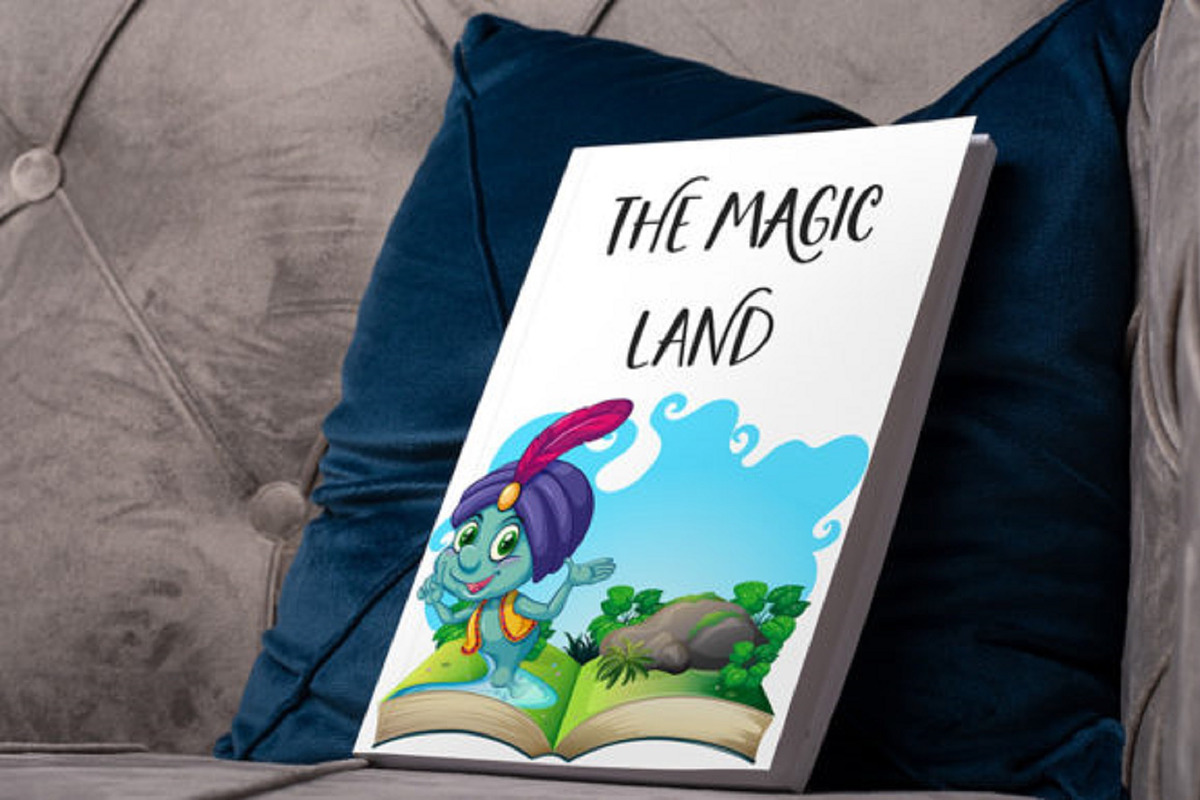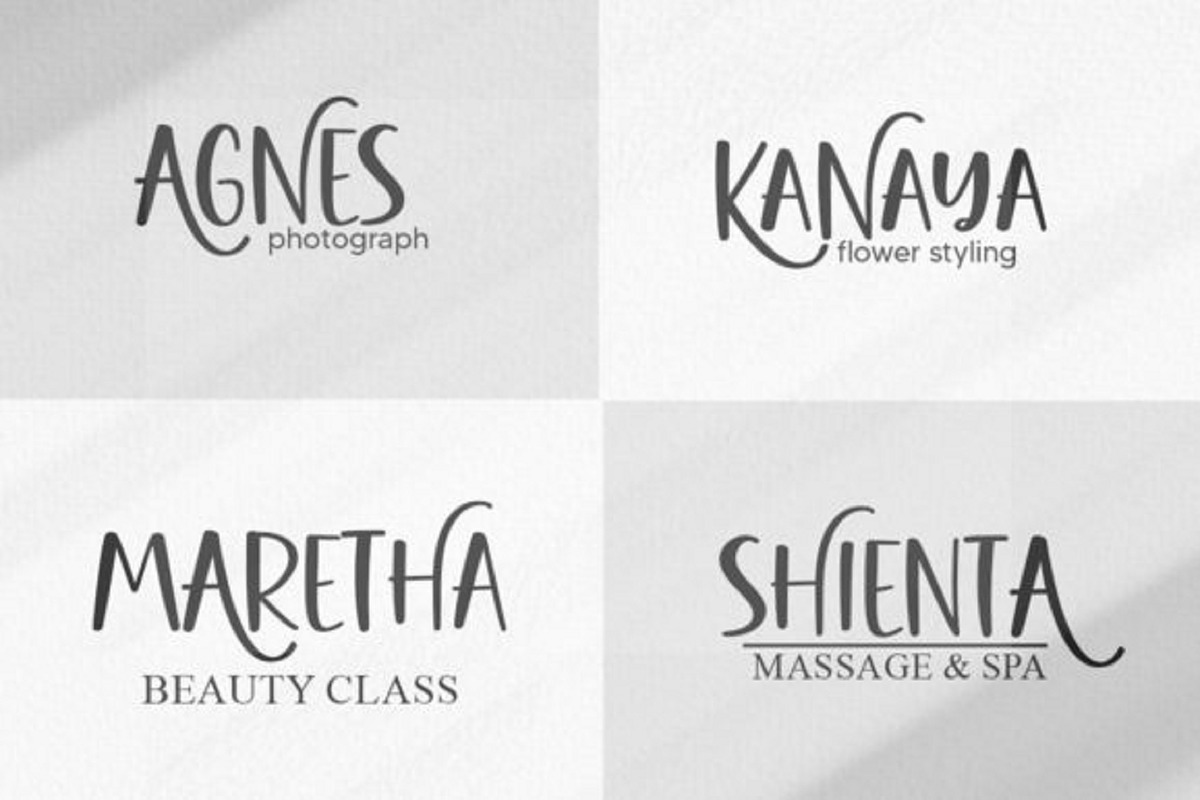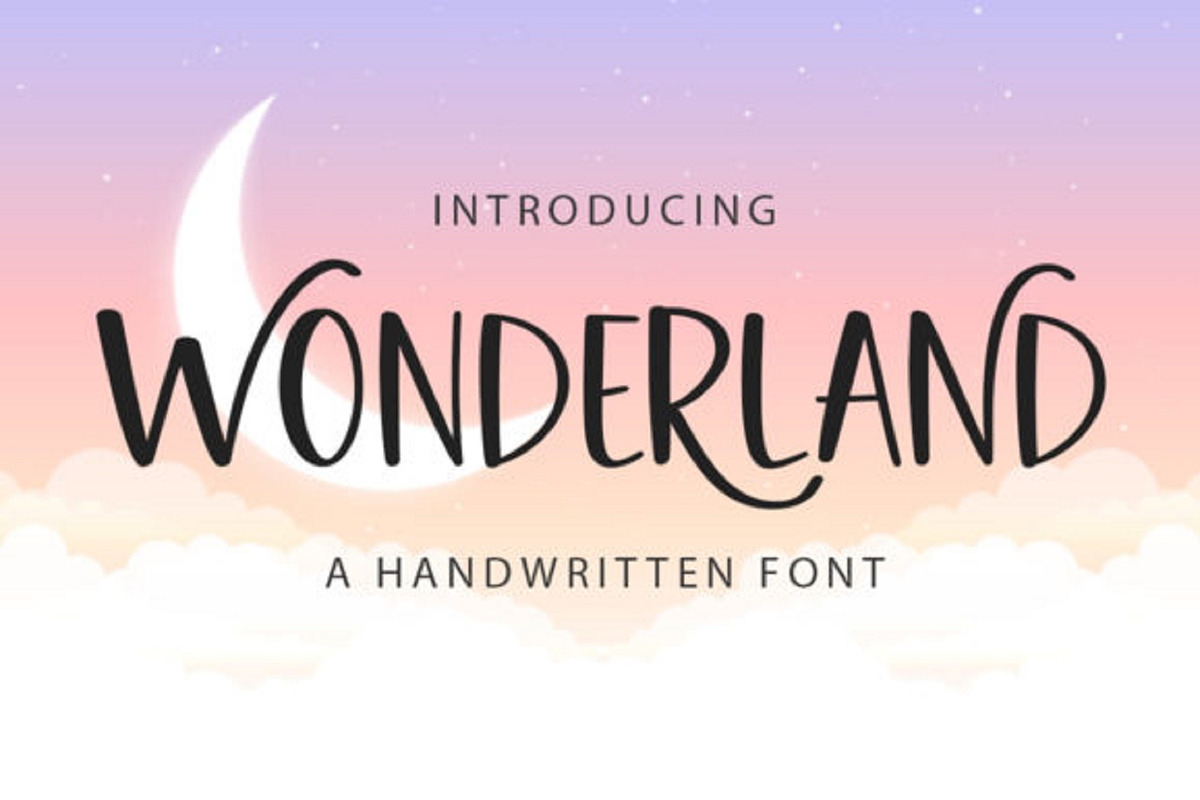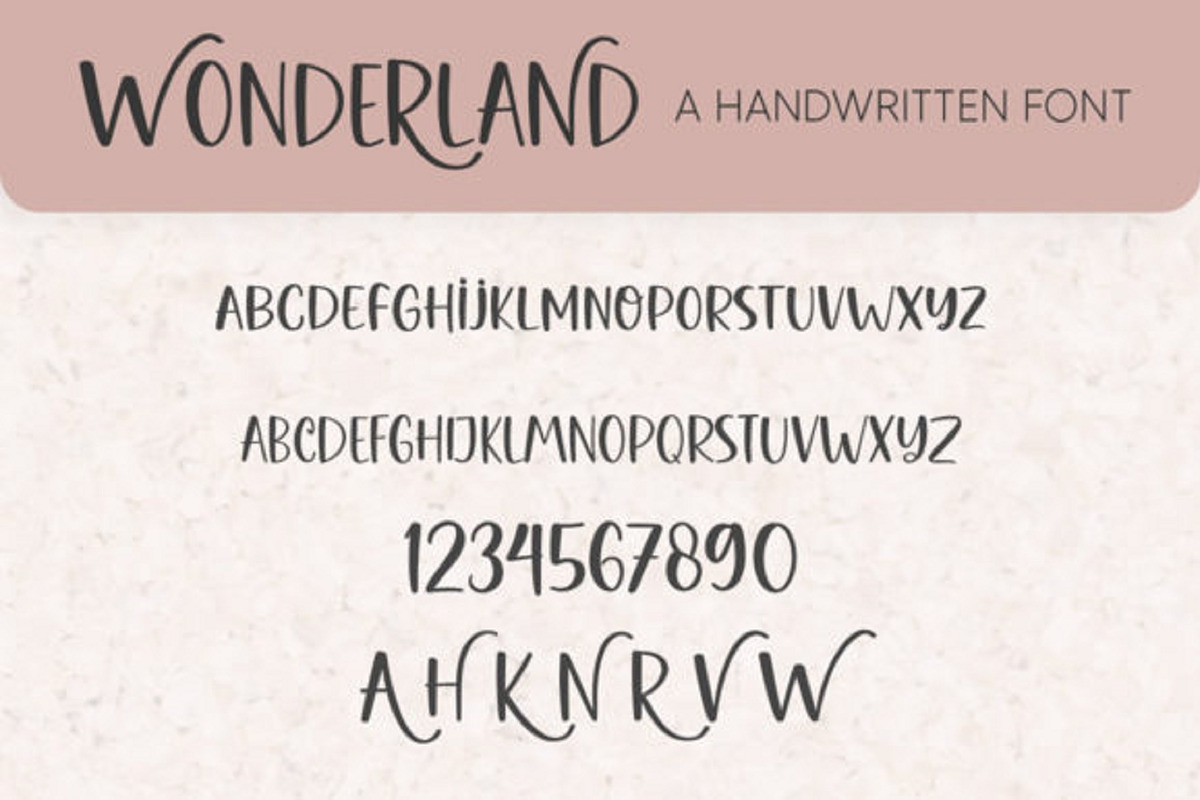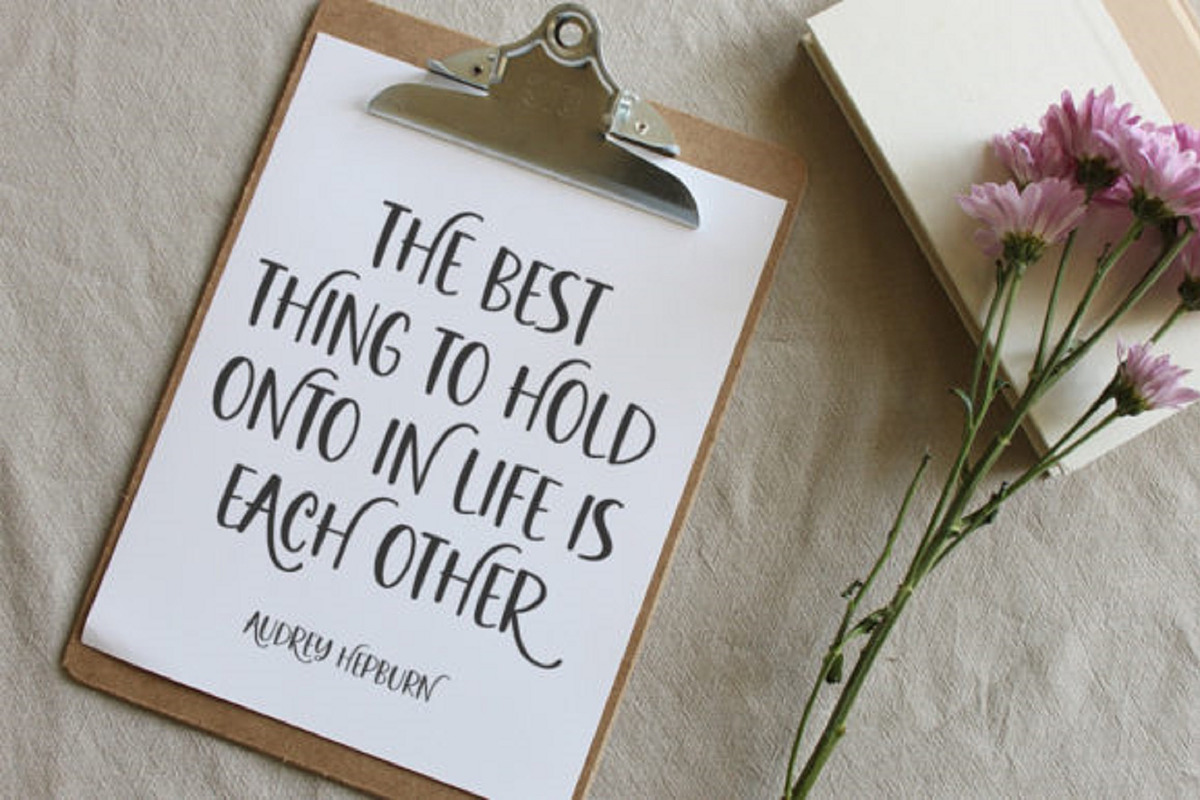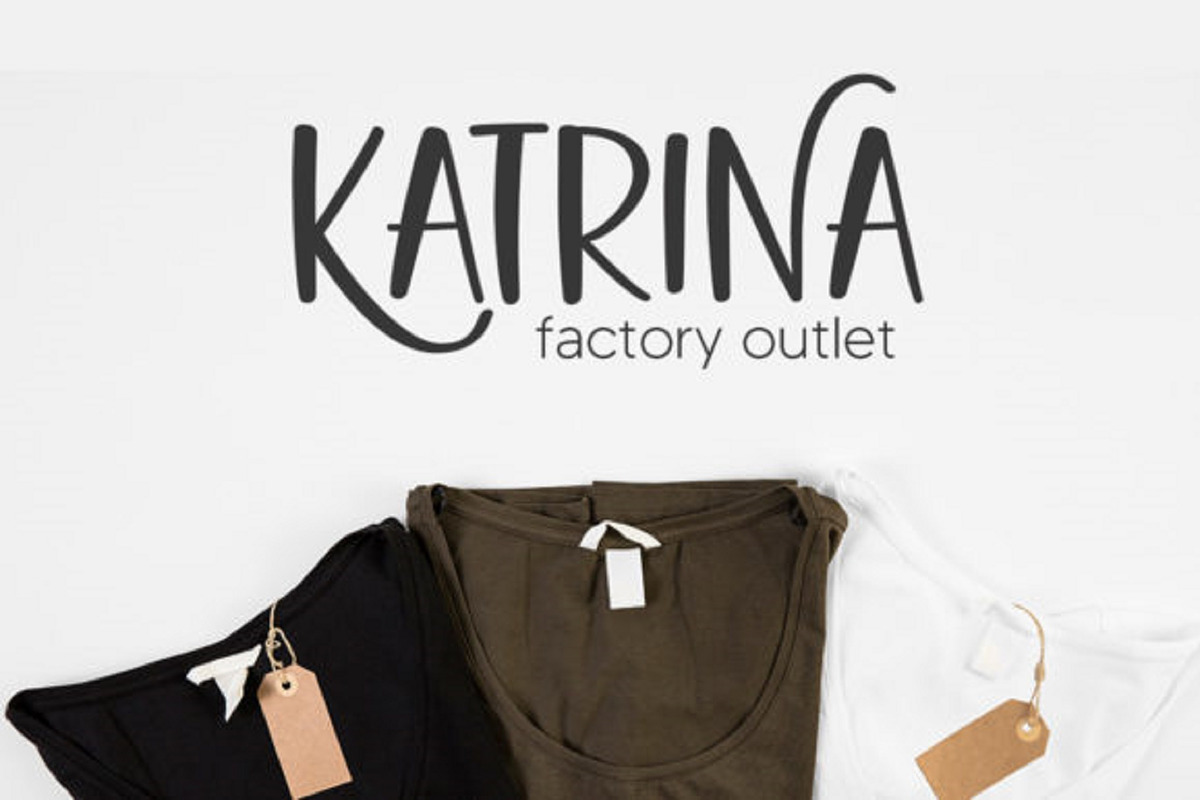
Wonderland Font
Wonderland is a delicate and simple-lettered display font, perfect for all the chalkboard quotes and teaching materials you wish to create! Its authentic look will add a personal and realistic feel to your designs.